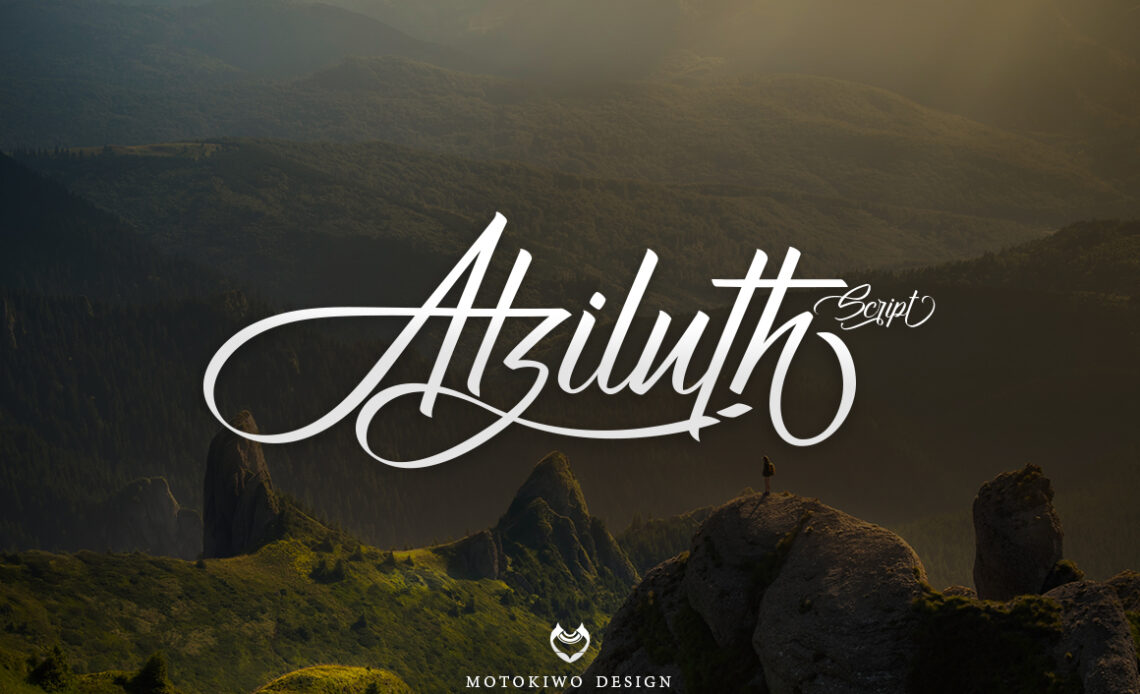
Immerse yourself in the world of Atziluth, a script font that captivates with its calligraphic elegance and graceful charm. As a display font, Atziluth shines with its accessibility and flexibility, making it the perfect choice for branding and logotype projects.
With Atziluth, you'll embark on a journey of creative expression, effortlessly crafting designs that exude sophistication and timeless beauty. Its plethora of alternates and ligatures empowers you to add a personal touch to your creations, ensuring that your message stands out in a sea of uniformity.
Feel the thrill as your designs come alive, infused with the captivating allure of Atziluth. Let your imagination soar as you explore endless possibilities, crafting logos that command attention, branding projects that exude elegance, and social media posts that captivate your audience.
Atziluth is more than just a font; it's an invitation to elevate your designs to new heights of artistry. Its graceful curves and flowing lines evoke a sense of enchantment, drawing your audience into a world of wonder and delight.
With Atziluth as your creative companion, you'll discover a font that not only fulfills your design needs but also ignites your passion for visual storytelling. Each letterform is meticulously crafted to convey a sense of authenticity and emotion, allowing your designs to resonate with your audience on a deeper level.
Unleash the power of Atziluth and watch as your designs transform into captivating masterpieces. Experience the joy of effortlessly creating designs that captivate, engage, and inspire. Embrace the Atziluth experience and embark on a creative journey that will leave an indelible mark on your audience.